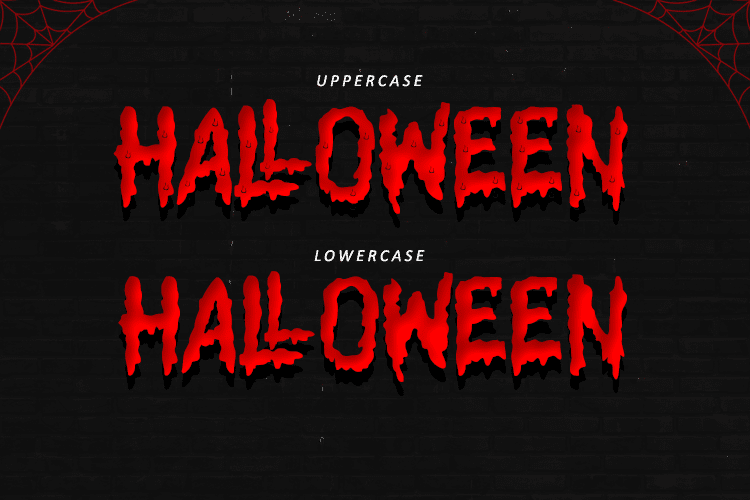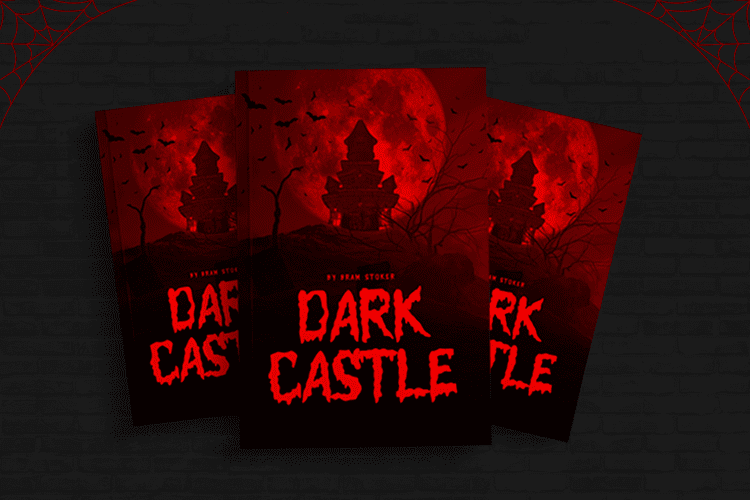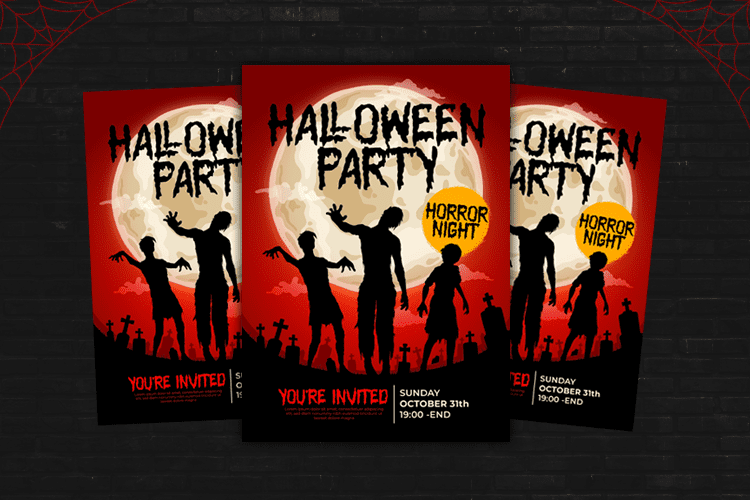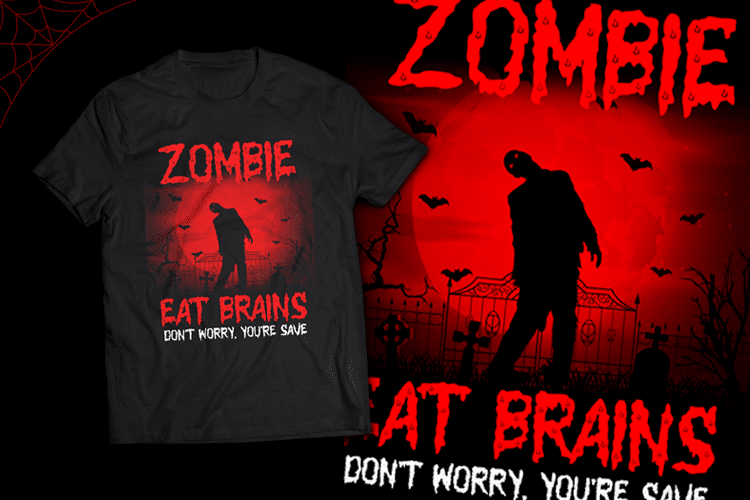
Halloween Slime Font
Halloween Slime Display Font is a slime spooky display font. Add this font to your favorite Halloween themed ideas, Tshirt, invitations, banner, logo, app game scary or horror and notice how it makes them STAND OUT !